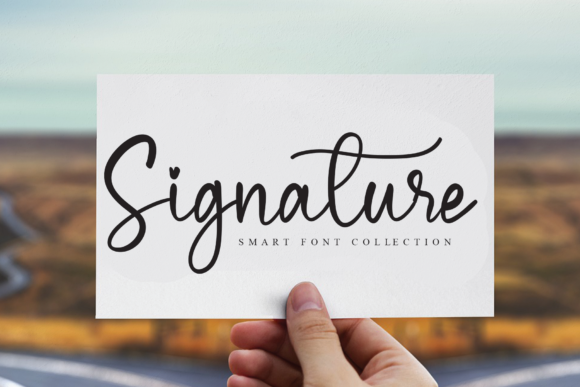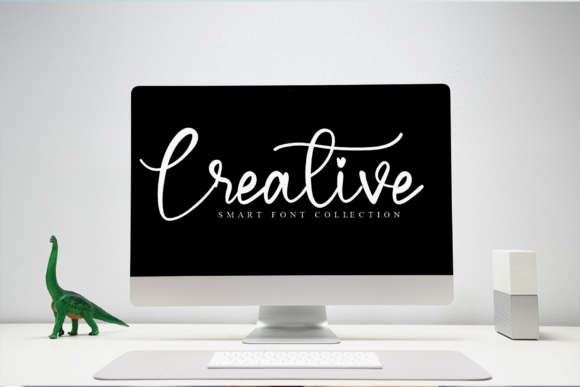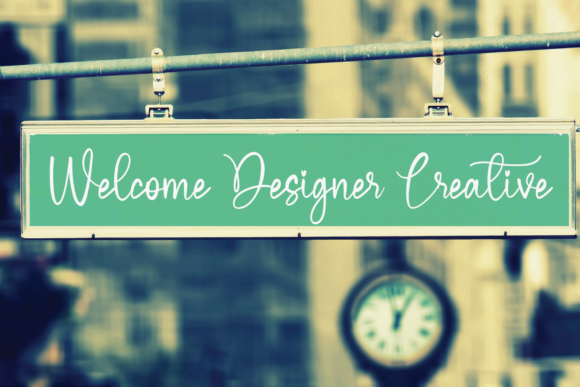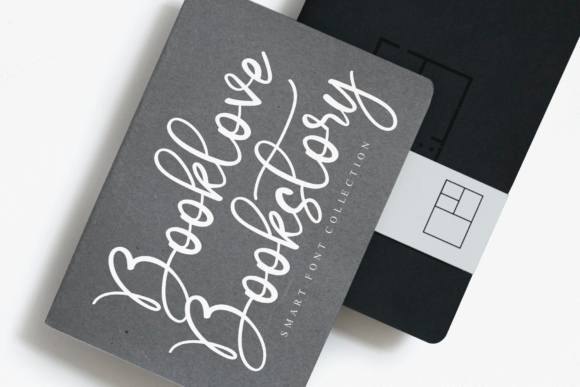
Babycute Font: The Ultimate Choice for Designers and Crafters
In the world of typography, fonts play a vital role in conveying the message and aesthetic of a design. For designers and crafters, finding the perfect font can be a daunting task, especially when it comes to creating eye-catching logos, branding, and quotes. This is where Babycute Font comes in – a lovely and timeless handwritten font that is sure to make your design come alive!
What is Babycute Font?
Babycute Font is a beautiful, handwritten font that exudes a sense of elegance and sophistication. Its unique and beautiful touch makes it an ideal choice for designers and crafters looking to add a personal touch to their designs. Whether you’re creating a logo, branding, or quote, Babycute Font is the perfect choice.
Characteristics of Babycute Font
So, what makes Babycute Font so special? Here are some of its key characteristics:
- Unique and Beautiful Touch: Every letter in Babycute Font has a unique and beautiful touch, which sets it apart from other fonts.
- Handwritten Style: Babycute Font is a handwritten font, which gives it a personal and elegant feel.
- Timeless: Unlike other fonts that may go out of style quickly, Babycute Font is timeless and can be used for years to come.
- Elegant and Sophisticated: Babycute Font exudes elegance and sophistication, making it perfect for high-end designs.
Uses of Babycute Font
Babycute Font is a versatile font that can be used in a variety of design projects, including:
- Logos: Create eye-catching logos that stand out from the crowd with Babycute Font.
- Branding: Use Babycute Font to create a consistent brand image that exudes elegance and sophistication.
- Quotes: Add a personal touch to your quotes with Babycute Font, making them perfect for social media posts, posters, and more.
- Stationery: Use Babycute Font to create beautiful stationery, including invitations, greeting cards, and more.
Benefits of Using Babycute Font
So, why should you choose Babycute Font for your design projects? Here are some benefits:
- Easy to Read: Babycute Font is easy to read, making it perfect for designs that require a clear and concise message.
- Versatile: Babycute Font can be used in a variety of design projects, from logos to stationery.
- Unique: Babycute Font is a unique font that will set your design apart from others.
- High-Quality: Babycute Font is a high-quality font that is perfect for professional designs.
Tips for Using Babycute Font
Here are some tips for using Babycute Font in your design projects:
- Use it Sparingly: Use Babycute Font sparingly to make it stand out. You can use it for headings or titles, and a simpler font for the body text.
- Pair it with Other Fonts: Pair Babycute Font with other fonts to create a unique and interesting design.
- Experiment with Colors: Experiment with different colors to find the perfect combination that works with Babycute Font.
In conclusion, Babycute Font is a lovely and timeless handwritten font that is perfect for designers and crafters looking to add a personal touch to their designs. Its unique and beautiful touch, elegant and sophisticated style, and versatility make it an ideal choice for a variety of design projects. Whether you’re creating a logo, branding, or quote, Babycute Font is sure to make your design come alive!